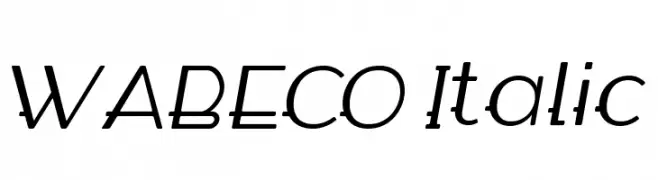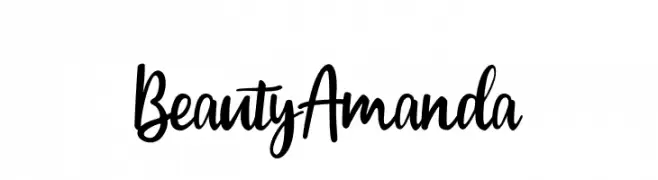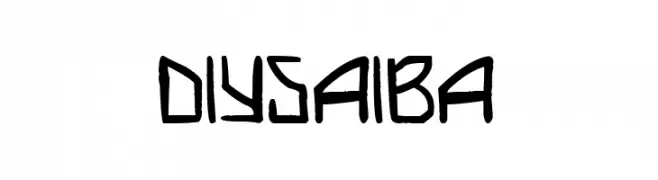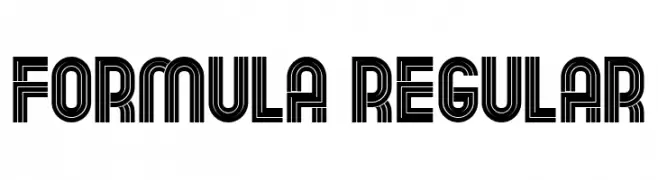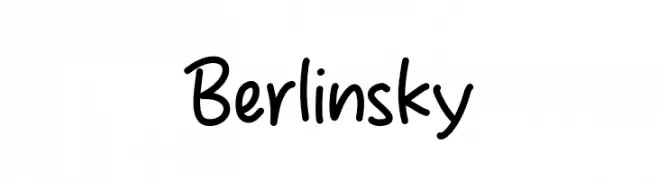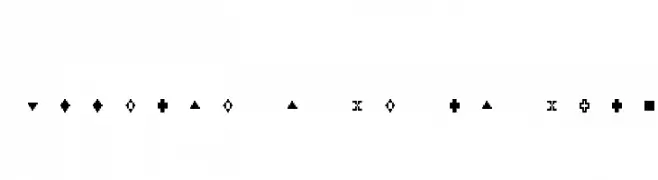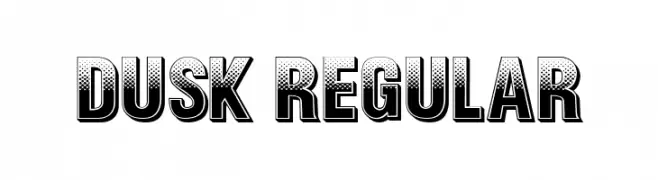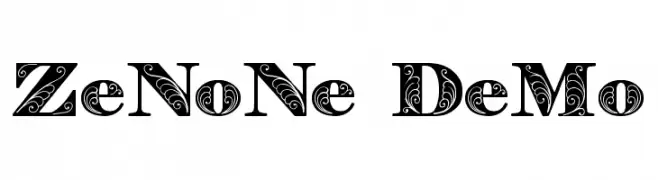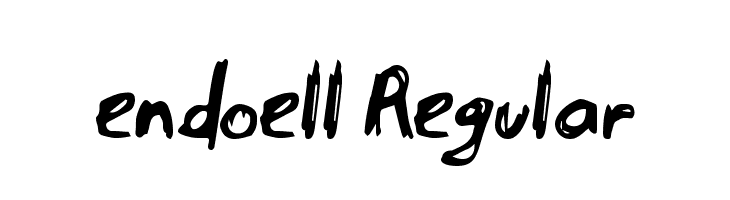
A modern italic font with clean lines and a sleek, contemporary style.
A bold, playful font with a dotted texture and bubble-like appearance.
A bold, graffiti-inspired font with blocky, angular characters and a strong urban aesthetic.
A bold, expressive handwritten font with fluid, connected letterforms.
A bold, hand-drawn font with an urban, edgy style.
A bold, geometric font with a multi-line pattern, ideal for striking designs.
A playful, casual handwritten font with smooth, rounded strokes.
A modular, geometric symbol font with a pixel-art style.
A bold, decorative font with a halftone pattern and strong outlines.
An ornate and decorative font with intricate swirls, ideal for vintage-themed projects.